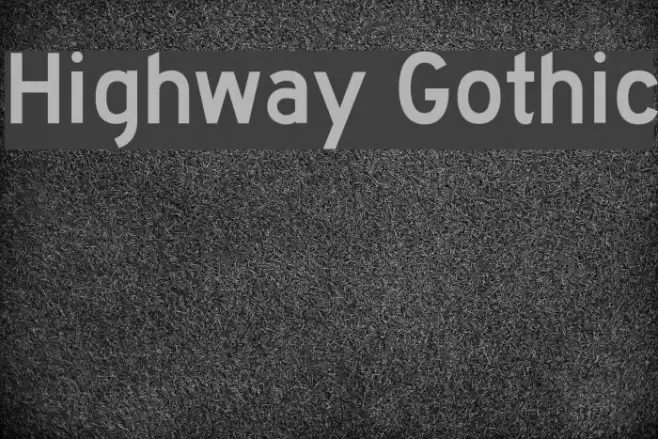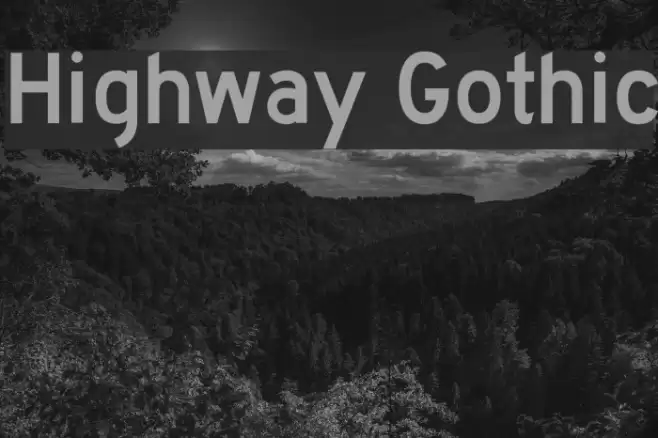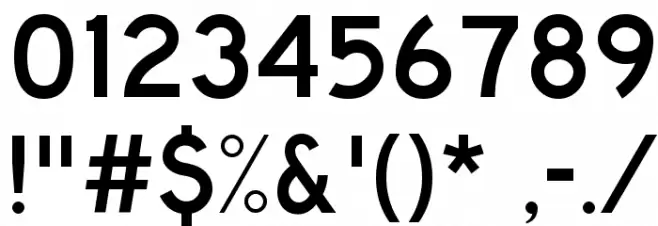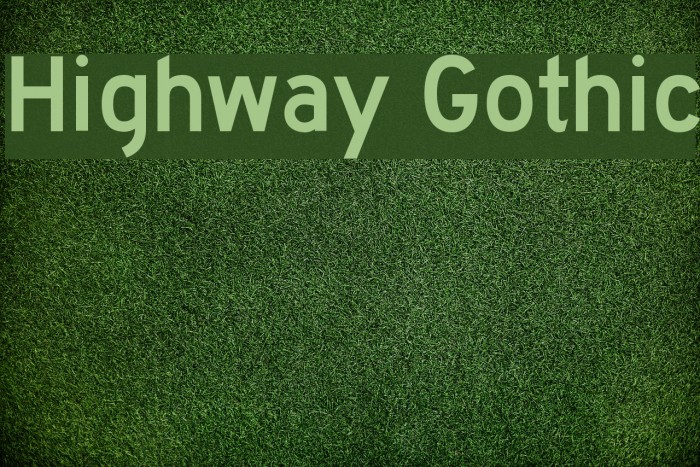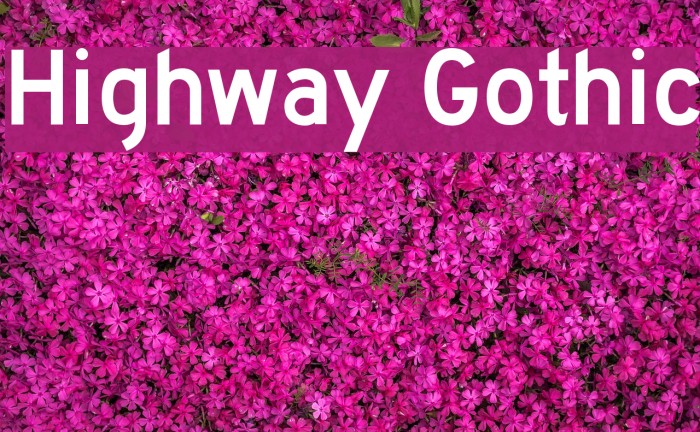
Highway Gothic Font
Highway Gothic Description
This font is a clean and highly legible sans-serif typeface designed for optimal readability at a distance and at high speeds. It features simple, geometric letterforms with uniform stroke widths, making it ideal for signage and wayfinding. The characters are bold and clear, with a modern aesthetic that ensures visibility and clarity. The font includes a full set of uppercase and lowercase letters, numerals, and a variety of punctuation marks and symbols. Its straightforward design and lack of decorative elements make it highly functional and versatile for various applications.
A clean, legible sans-serif typeface designed for readability and clarity from Uncategorized fonts.
- Proposed Projects: Ideal for road signage, wayfinding systems, informational displays, and any project requiring high legibility.
- Use Case: Headlines, Signage, Informational displays